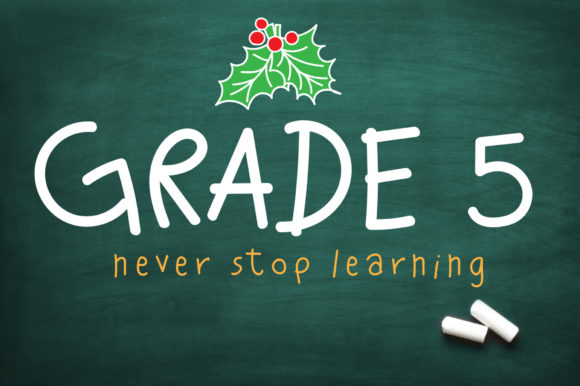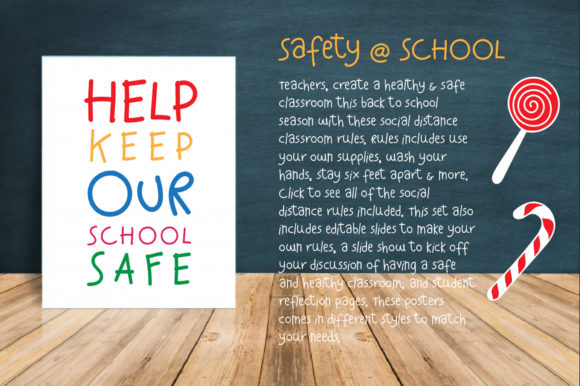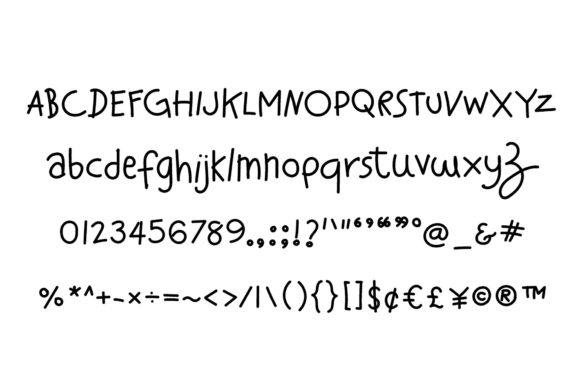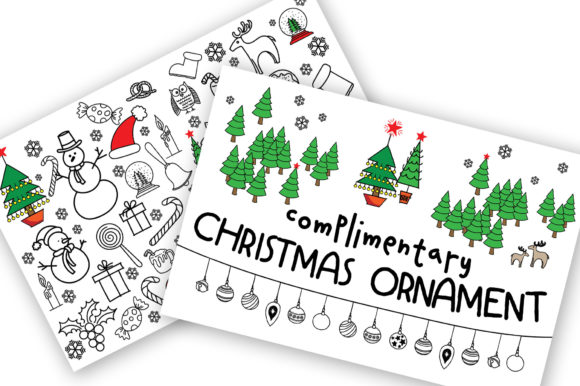
Grade 5 Font
About Grade 5 Font
Grade 5 is a plain yet cute and lettered handwritten font suitable for all chalkboard quotes or teaching material! Its authentic look will add a personal and realistic feel to your designs.